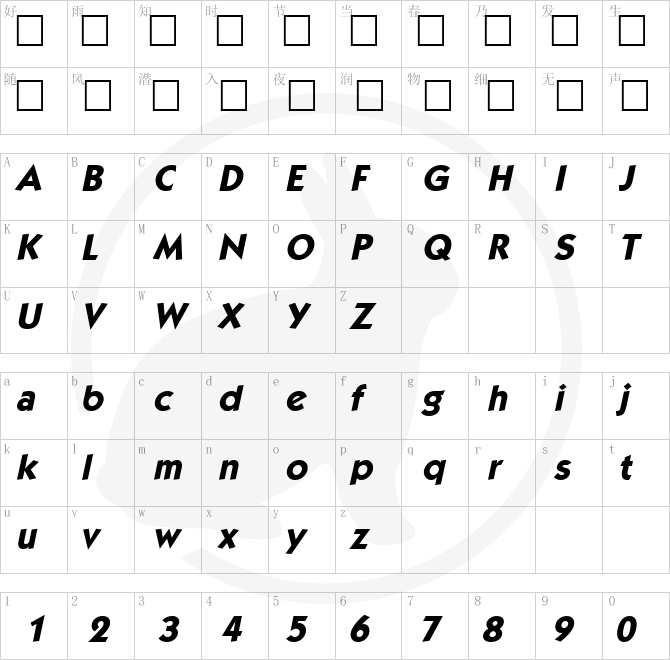
KabobExtrabold-Italic.ttf is a very beautiful artistic font, KabobExtrabold-Italic.ttf is widely used in the design and printing of various books and pictures,KabobExtrabold-Italic.ttf has a strong visual impact,KabobExtrabold-Italic.ttf is a commonly used font in newspapers, magazines and books, and is used in posters, e-commerce Poster design, store design, logo design, font design and other fields.KabobExtrabold-Italic.